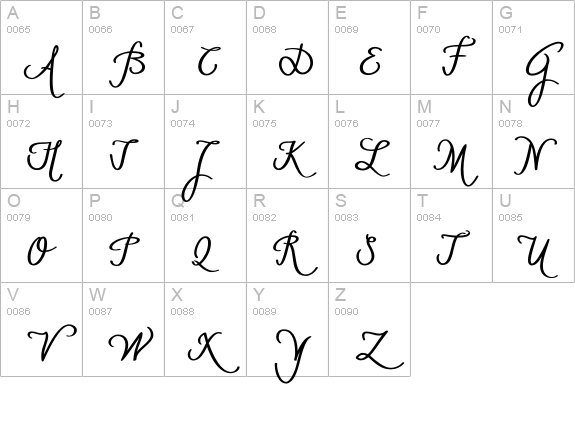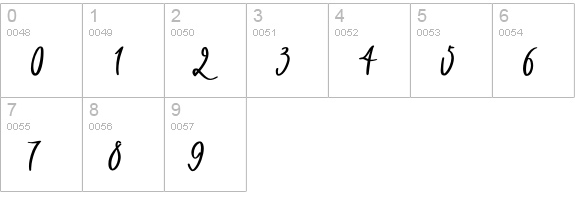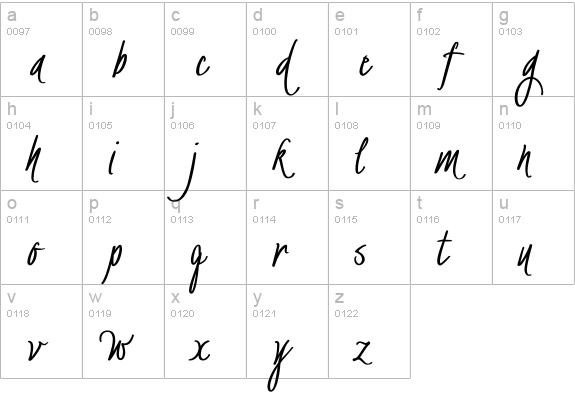
BachelorScript Bold Font Details
BachelorScript Bold is a strong, high-contrast variant in the BachelorScript typeface family \xE2\x80\x94 well suited to headlines, attention-grabbing titles, and strong calls-to-action.
BachelorScript Bold font is a striking and dynamic typeface that exudes confidence and elegance. Its bold and fluid strokes make it perfect for creating eye-catching designs that demand attention. Whether used for headlines, titles, or branding, BachelorScript Bold font adds a touch of sophistication to any project. What's even better is that this exquisite font is available for free download at FontsMarket.com. So, designers and creatives can easily access this premium font without any cost. Elevate your designs with the timeless charm of BachelorScript Bold font today!